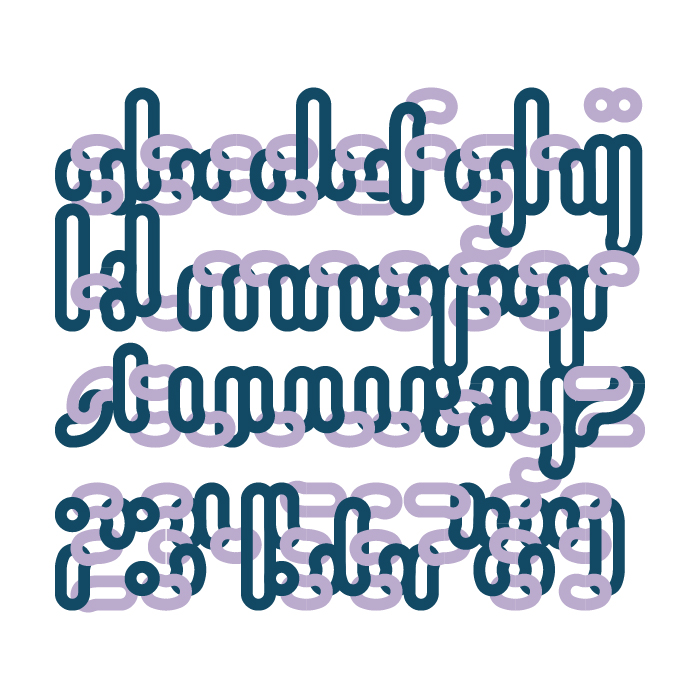
So fresh! I like it!
It looks like paper clips...
A very creative way to use the “connect” bricks! 👍
@Jeyco Yeap, that actually also crossed my mind while I was in the middle of fontstructing
@riccard0 Yeah, I like em, very easy with to execute an idea.
Cool work as usual. Love the muted colors.
Congratulations! FontStruct Staff have deemed your FontStruction worthy of special mention. “Duo Loopa KD” is now a Top Pick.